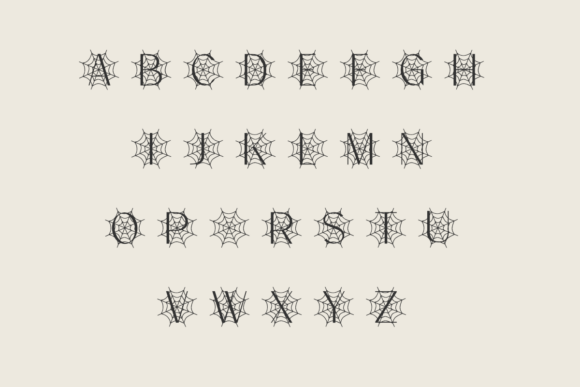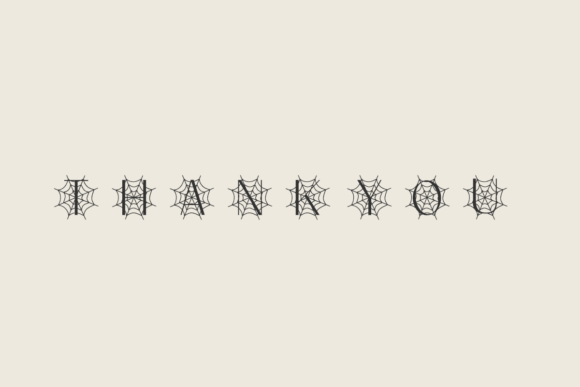
Unleashing the Magic of Halloween Designs
As the clock strikes midnight on Halloween night, the air is filled with the eerie whispers of ghosts and goblins. But for designers, the real magic happens when creating spooky and captivating designs that set the mood for the most haunting night of the year. And that’s exactly where the Elegant Spider Font comes in – a unique and captivating font that weaves its own spell of elegance and mystery.
This enchanting font is designed to add a touch of gothic charm to your Halloween designs, making it perfect for creating eye-catching posters, invitations, and other spooky materials. With its intricate spiderweb details and elegant serif style, the Elegant Spider Font is a valuable tool for designers looking to elevate their Halloween creations and leave a lasting impression on their audience.
Elegant Spider Font Key Features
- Unique Characteristics: This font features intricate, hand-drawn designs and ornate details, giving it a distinctive and elegant appearance that sets it apart from other fonts.
- Legibility: Despite its ornate design, Elegant Spider Font is highly legible, making it suitable for use in a wide range of applications, from body text to headings and titles.
Elegant Spider Font Review
The Elegant Spider Font is a beautiful, hand-drawn typeface that exudes sophistication and refinement. ✨ Its intricate details and elegant curves make it perfect for creating high-end, luxury branding and marketing materials.
Here are some of the things that work well with this font:
- ✨ Unique and distinctive design that sets it apart from more common fonts
- ✨ Excellent for creating attention-grabbing headlines and titles
- ✨ Highly customizable, with a wide range of weights and styles available
- ⚠️ May be difficult to read in smaller sizes or at a distance, due to its intricate details
- ⚠️ Not suitable for body text or large blocks of text, as it can be fatiguing to read
Overall, I think the Elegant Spider Font is a stunning addition to any designer’s toolkit. While it may have some limitations, its unique design and high-end aesthetic make it perfect for creating luxurious and sophisticated branding and marketing materials.
Tips for Getting the Most Out of Elegant Spider Font
For optimal results, use Elegant Spider Font in combination with a clean and minimal design aesthetic. Experiment with different font sizes and styles to achieve a balanced look. Avoid using Elegant Spider Font for large blocks of text, as it is best suited for headings and titles.
Elegant Spider Font is ideal for:
- Designing elegant and sophisticated logos
- Creating stylish and modern invitations
- Adding a touch of elegance to digital products and marketing materials
Alternatives to Elegant Spider Font
Playfair Display is a high-end, elegant serif font ideal for luxurious and high-end designs. It features intricate details and ornate flourishes, making it perfect for wedding invitations, luxury branding, and high-end publications. In comparison to Elegant Spider Font, Playfair Display has a more traditional and classic feel, with a more pronounced serif style.
Great Vibes is a beautiful, elegant script font that exudes sophistication and luxury. It’s perfect for high-end branding, luxury packaging, and fine art designs. Unlike Elegant Spider Font, Great Vibes has a more fluid and cursive feel, making it ideal for designs that require a sense of movement and elegance.